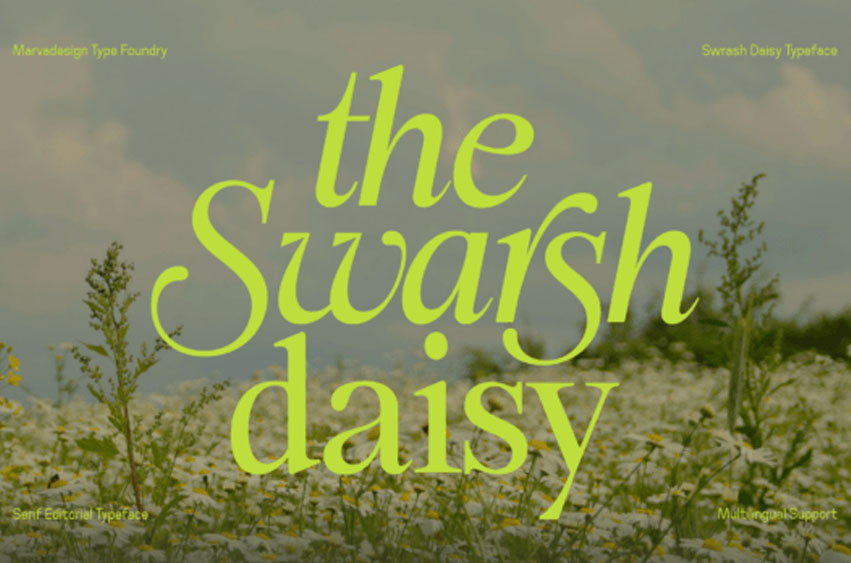
Swarsh Daisy Font
Swarsh Daisy Font is a refined and contemporary serif font characterized by its high contrast between thick and thin strokes, elegant curves, and distinctive swash details. It blends classical serif elements with a modern, editorial flair—perfectly suited for use in fashion branding, magazine layouts, packaging, and artistic expressions.
The font includes both regular and italic styles, each designed with thoughtful attention to rhythm and movement, enhancing the visual flow of the text.